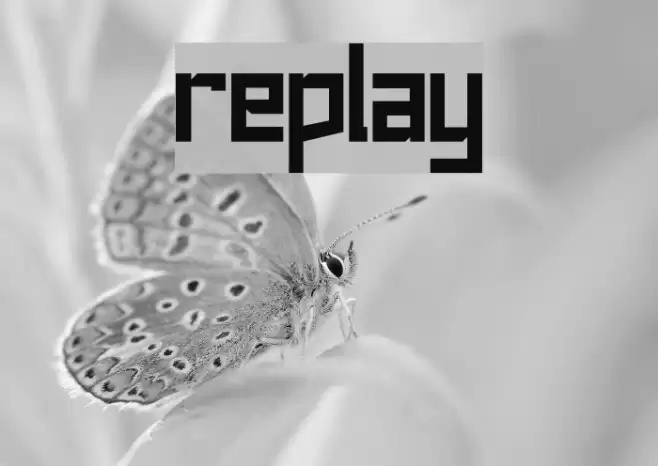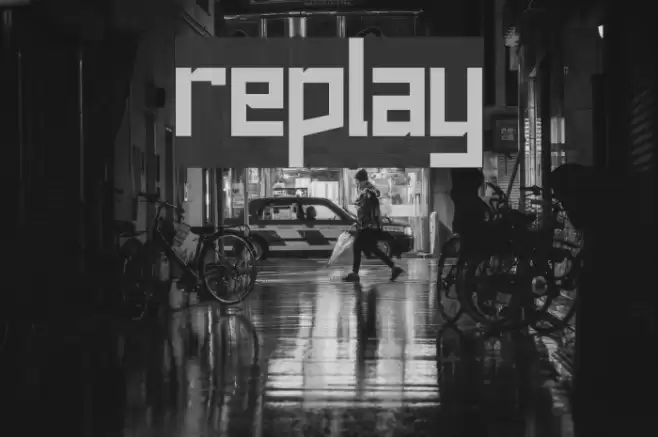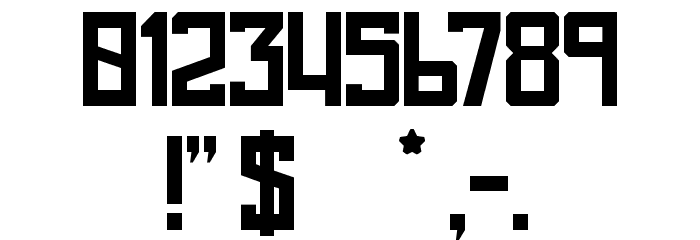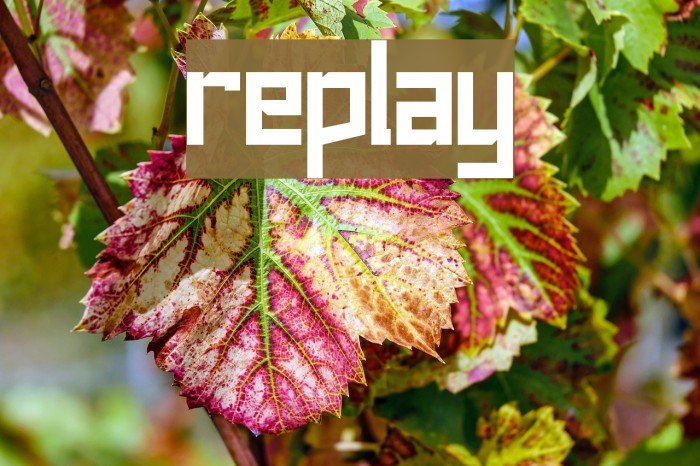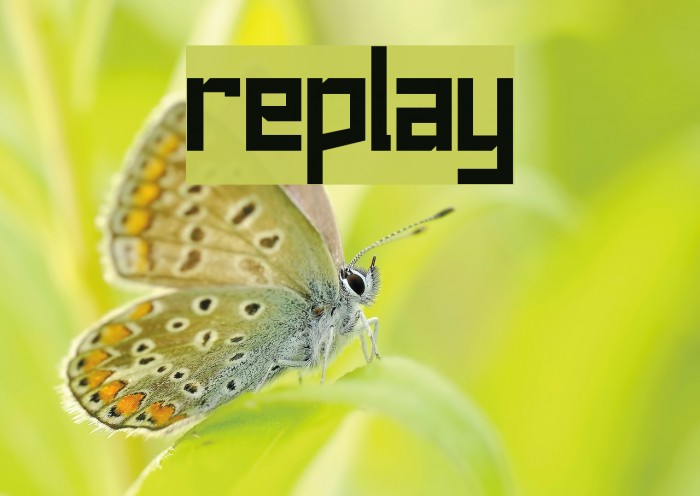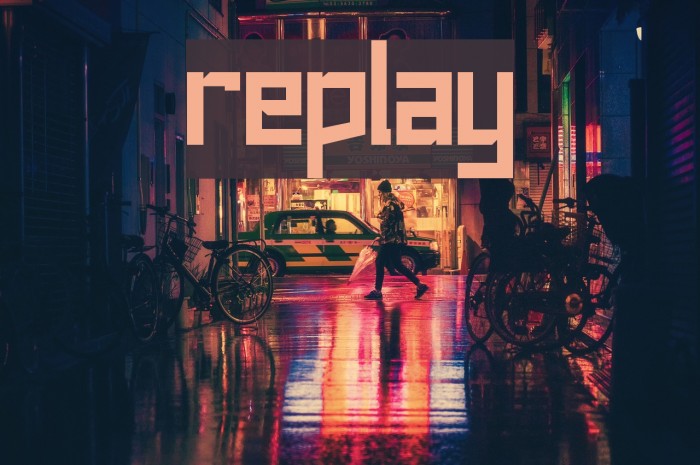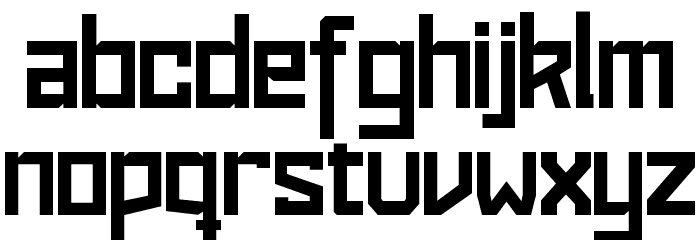
replay Font
replay Description
This font features a bold, geometric design with a strong, angular structure. The characters are constructed with straight lines and sharp corners, giving it a modern and futuristic appearance. The uppercase letters are uniform in height, while the lowercase letters maintain a consistent baseline, enhancing readability. The numerals are distinct and align well with the overall style, making them suitable for digital displays. Special characters are designed with the same angular precision, ensuring a cohesive look across all glyphs. The font's boldness and unique style make it ideal for attention-grabbing headlines and logos.
A bold, geometric font with angular, modern design from Futuristic fonts.
- Proposed Projects: Ideal for futuristic branding, tech-related projects, digital interfaces, and bold headlines.